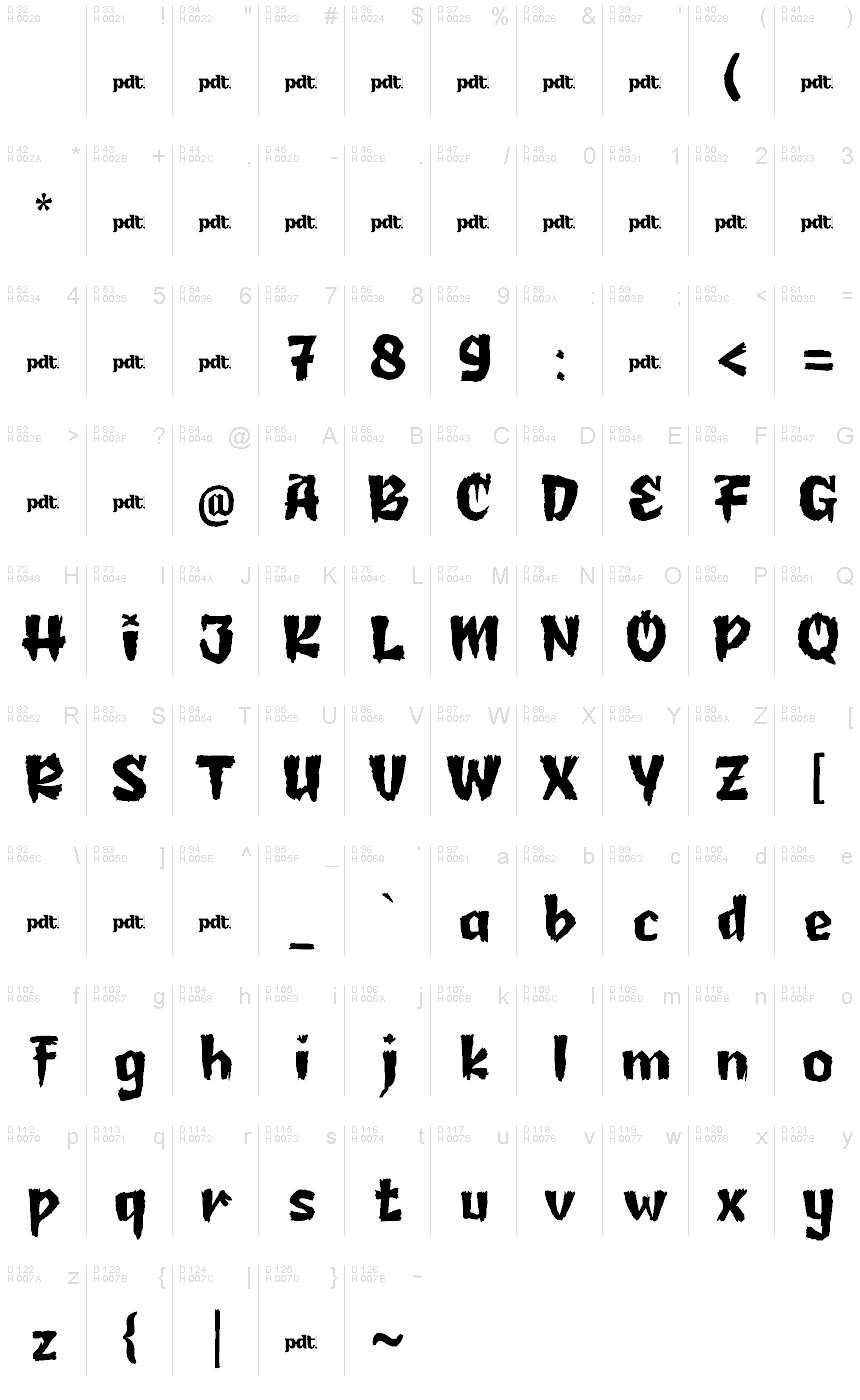
JIFERBOGYPersonalUse-Regular
Jifer Bogy font is a bold brush font by Productype with a grunge and edgy appearance. It has an expressive style, along with a distressed textured appearance that adds to the rugged feel of each letter which becomes even more noticeable in logotype where words are short and size is large. The overall vibe is artistic, so when you want to deliver art-related messages of any sort - this font can be counted on as your choice!
Use Jifer bogey for including text in posters, album covers, or magazine covers. Consider it also for logo design, branding presentations, labels, website designs, buttons from within apps or certain websites special sections to name some!